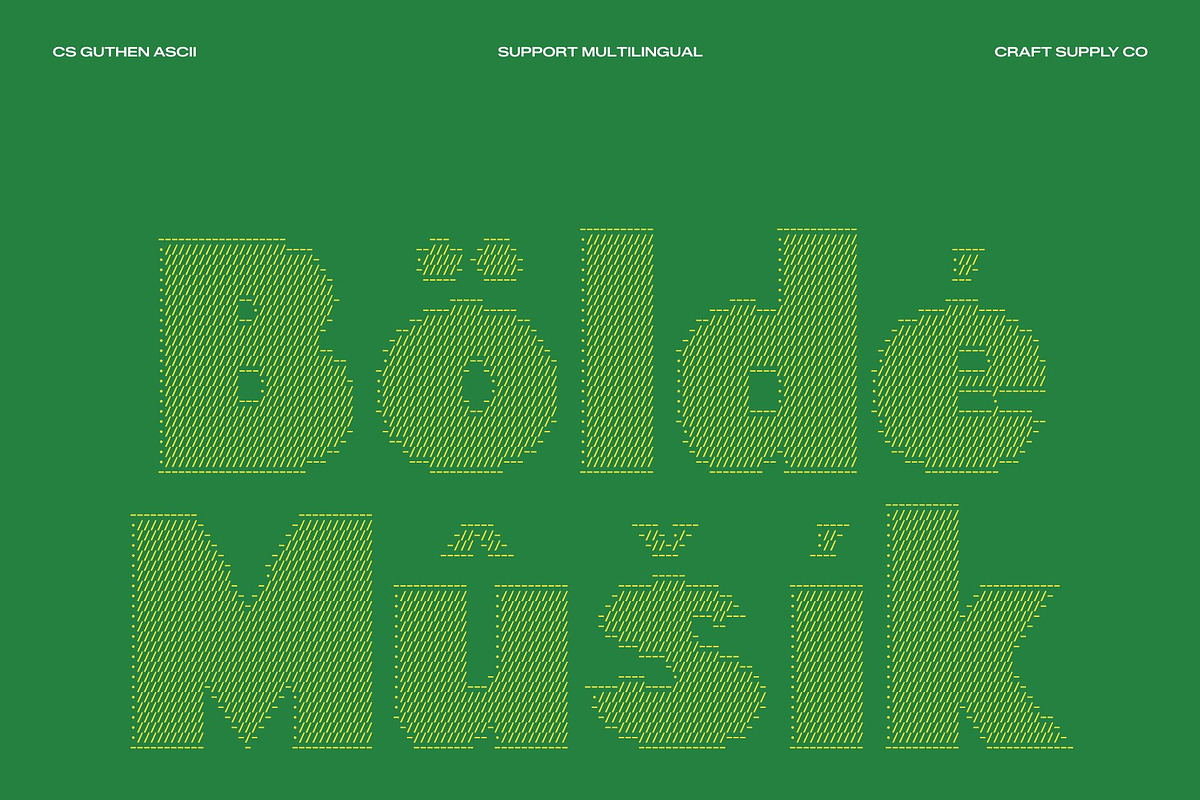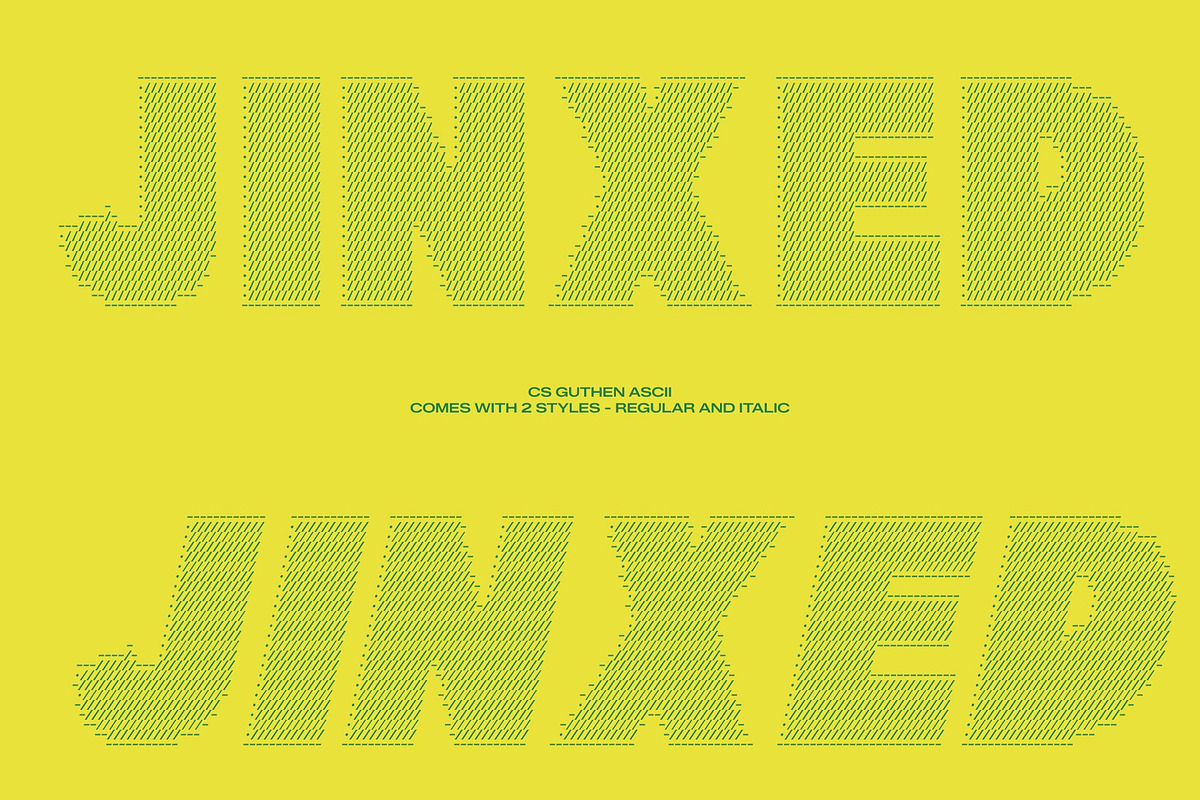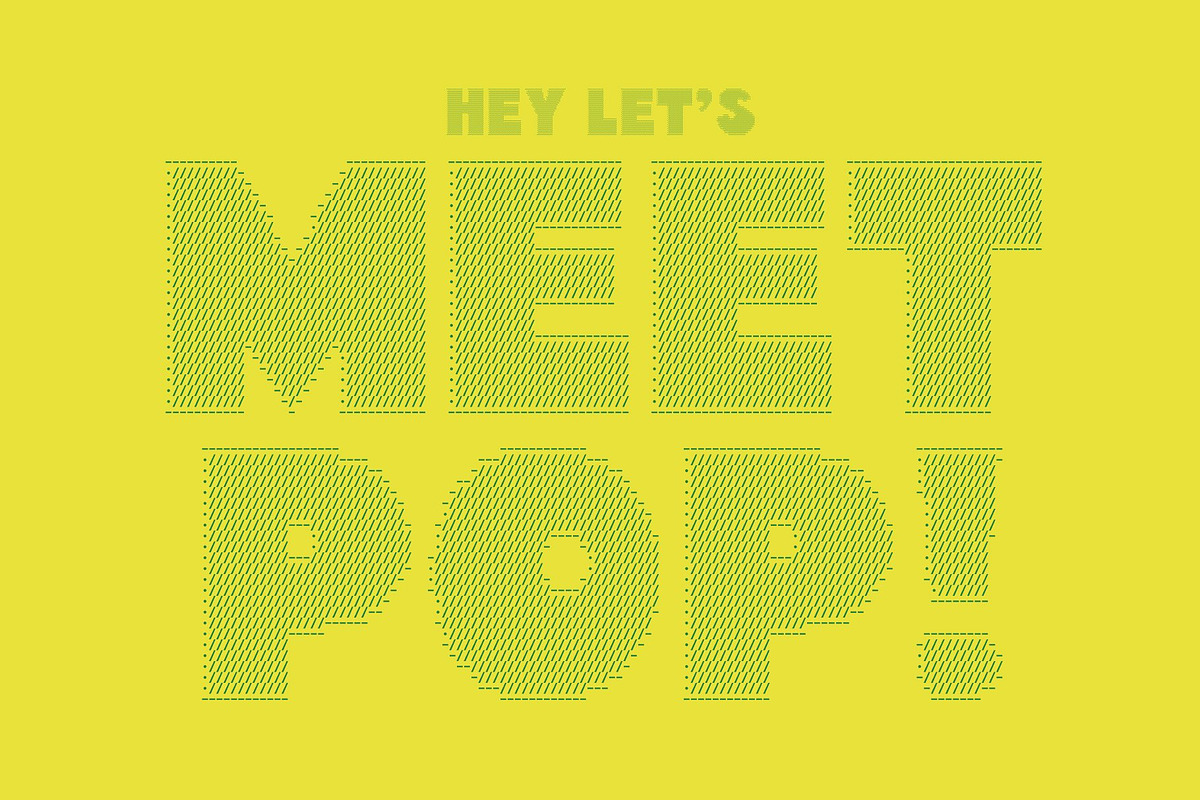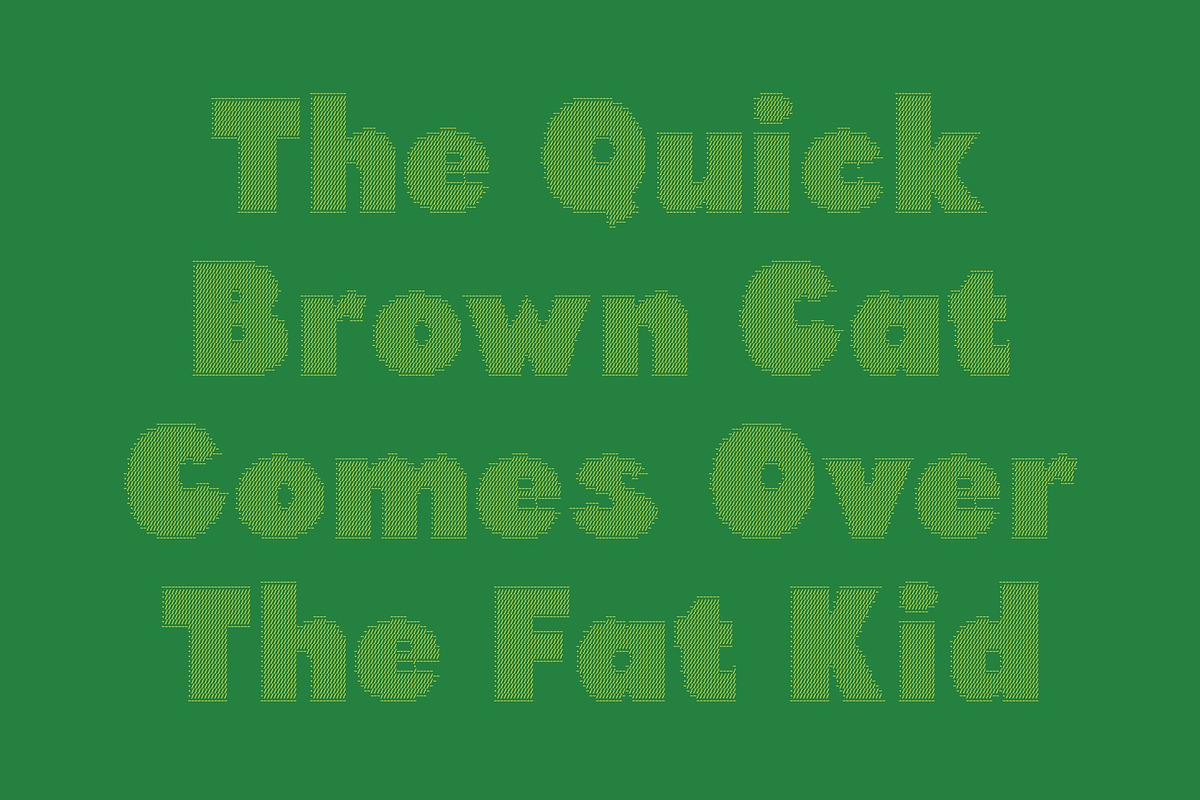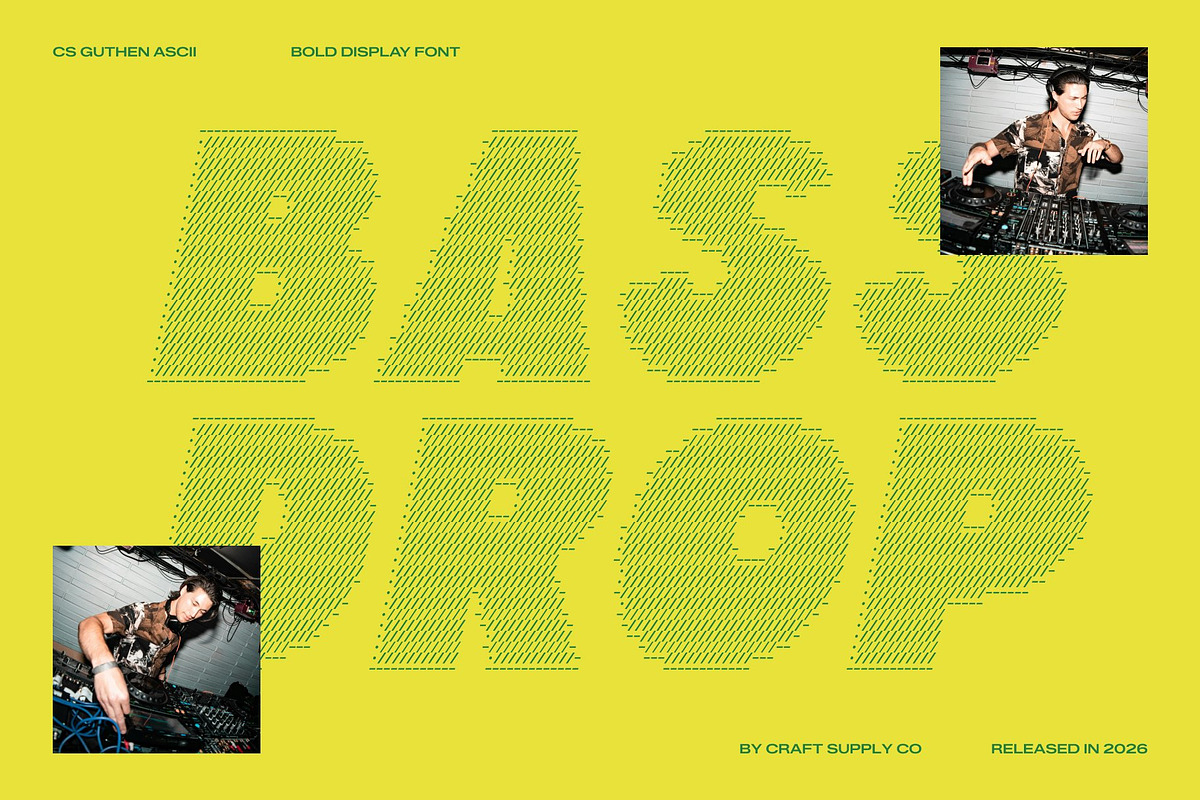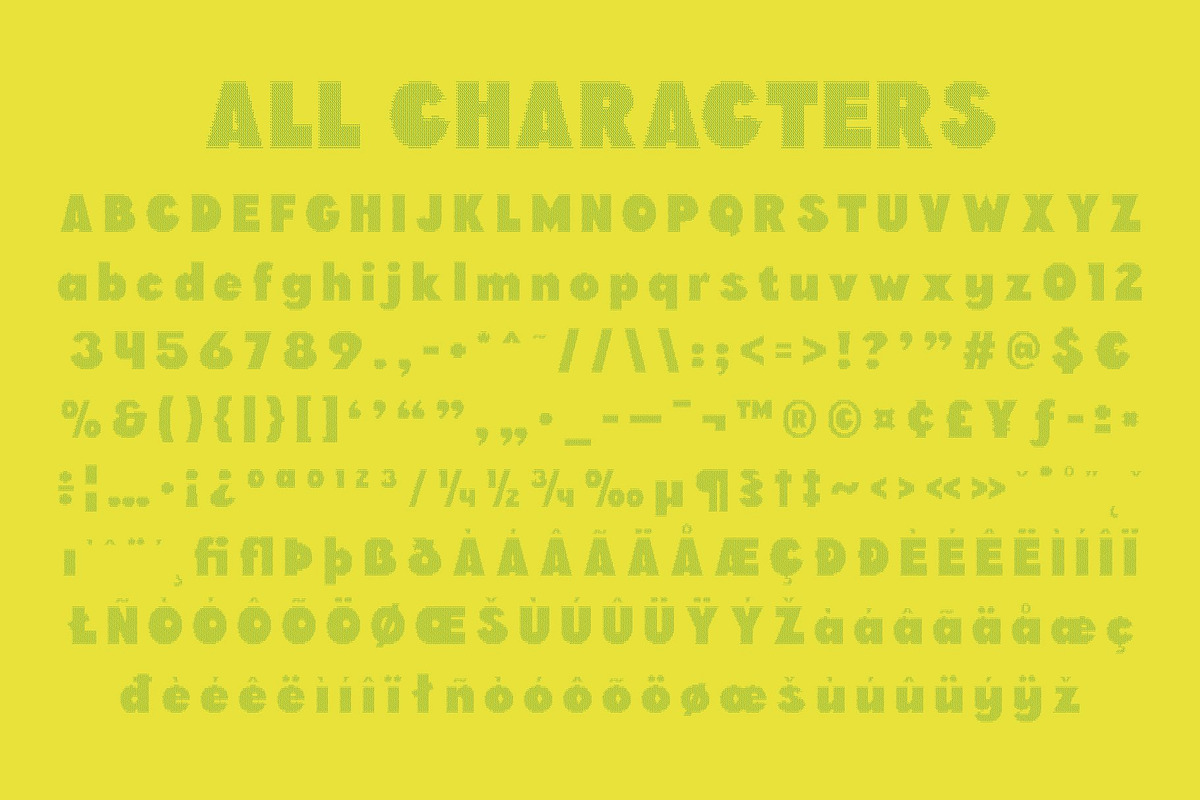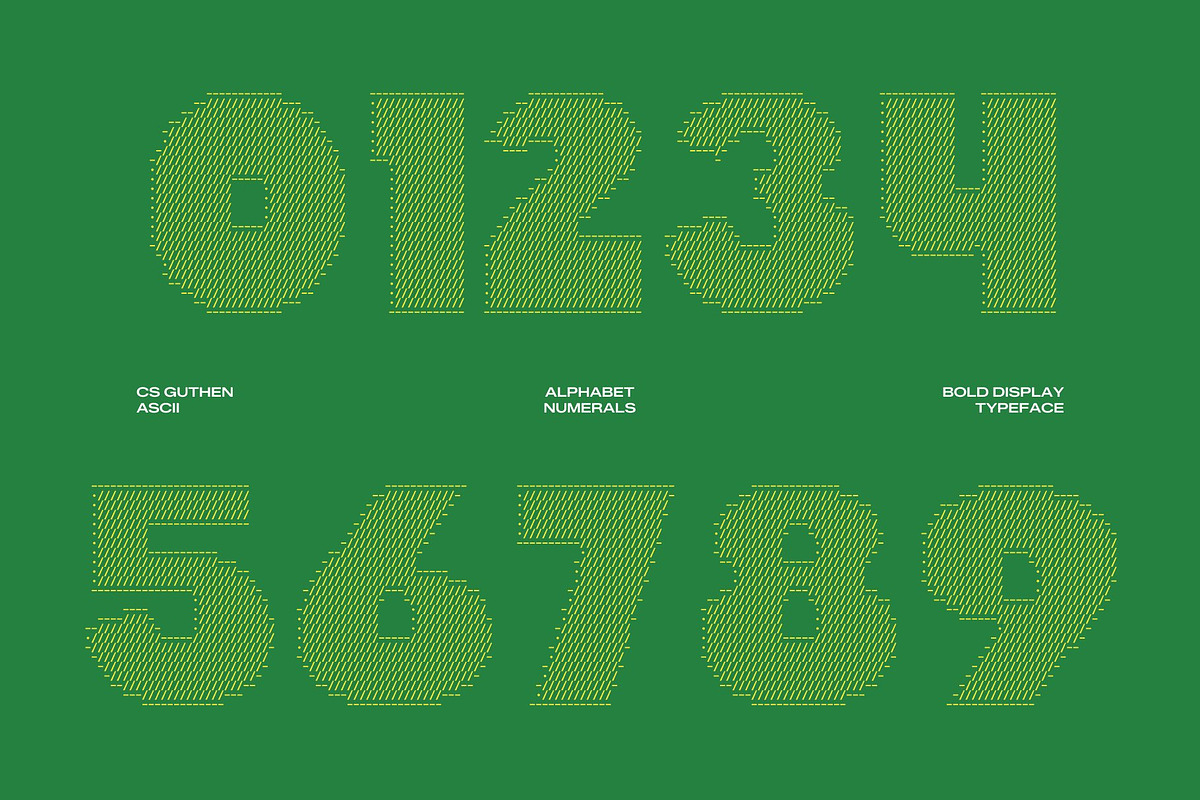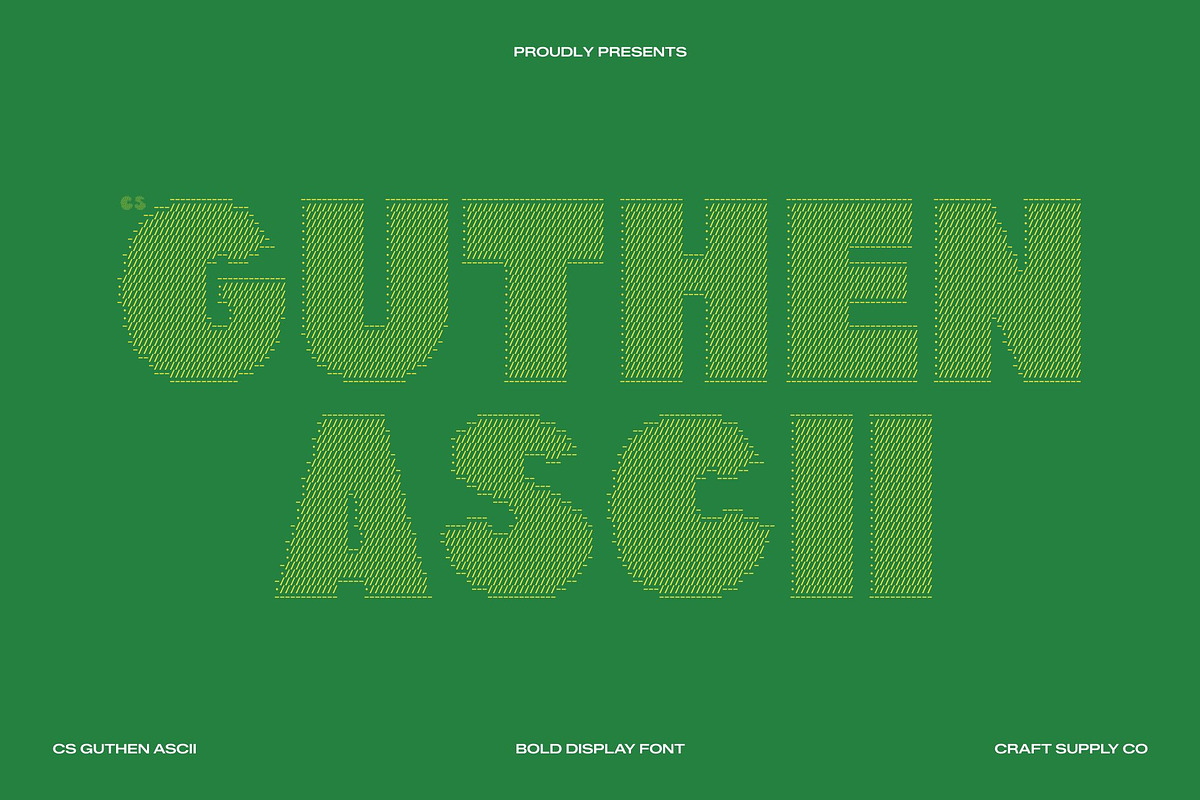
CS Guthen Ascii
CS Guthen Ascii – Bold Font: Playful Energy in Digital Form
Energetic Design Reimagined in ASCII This transforms the lively and playful spirit of a bold sans serif into a vibrant ASCII-based display font. Each character is carefully constructed from symbolic elements, forming rounded and expressive letterforms that feel energetic, fun, and full of personality. This ASCII reinterpretation turns simple text into engaging visual compositions that instantly capture attention and evoke a cheerful mood.
Fun, Cute, and Visually Dynamic Structure With its soft curves and bold proportions, this font balances strong readability with a friendly and approachable tone. The ASCII detailing adds a decorative digital texture that enhances its playful identity, making each word feel animated and expressive. This combination of structure and charm creates a typeface that feels youthful, creative, and visually uplifting.
Perfect for Youthful and Creative Expression This font is ideal for social media graphics, event posters, merchandise design, product packaging, and playful branding. Its bold yet friendly personality makes it especially effective for projects targeting younger audiences or designs that aim to communicate joy and creativity. The ASCII style adds a distinctive twist that helps visuals stand out in crowded digital spaces.
Versatile Typeface for Fun and Impactful Design Designed for energetic communication, this font brings excitement and warmth to any creative project. It works beautifully in advertising, promotional content, digital campaigns, and experimental visuals.